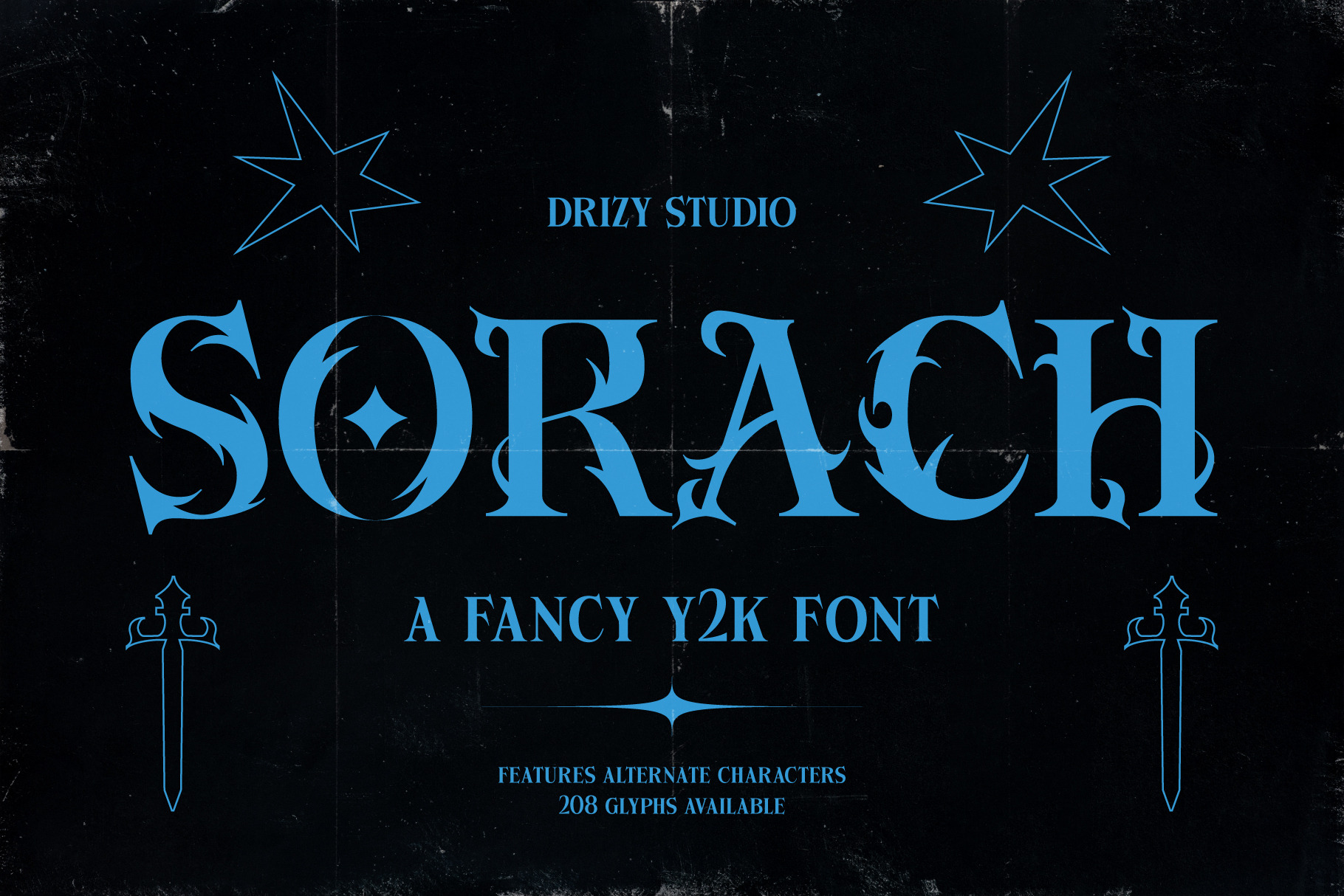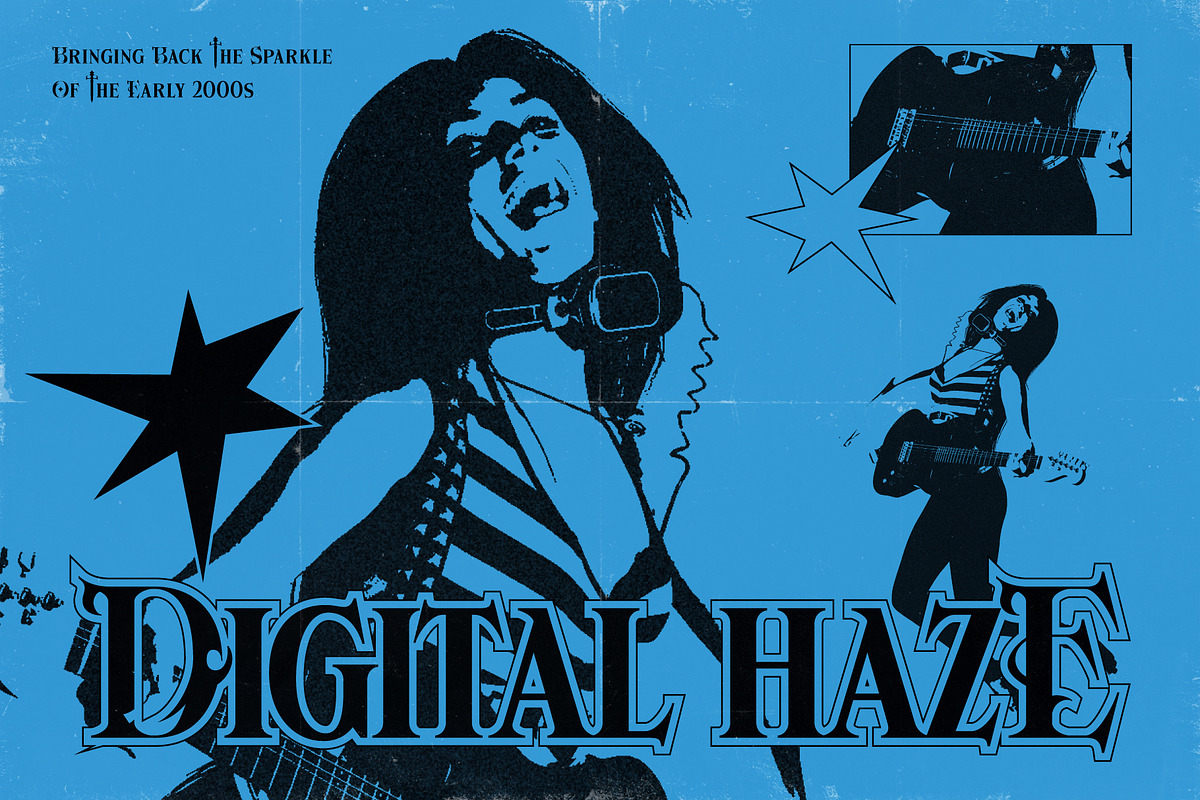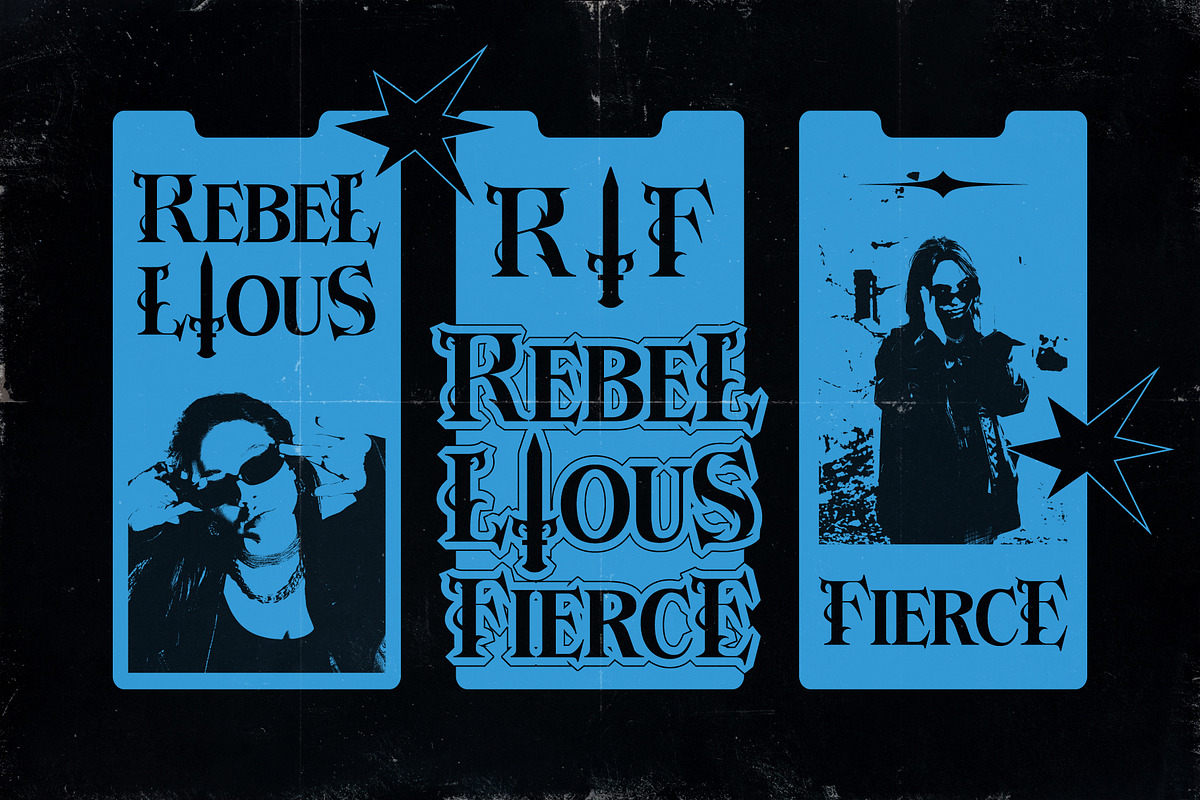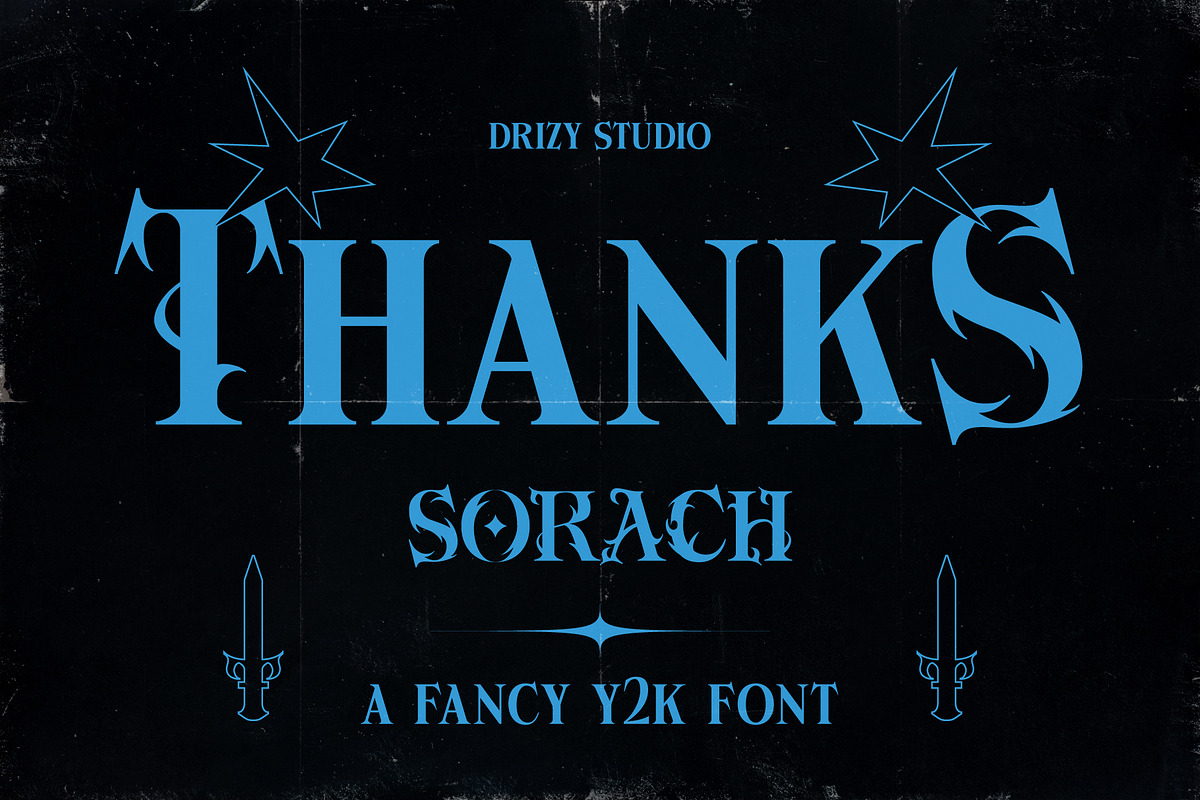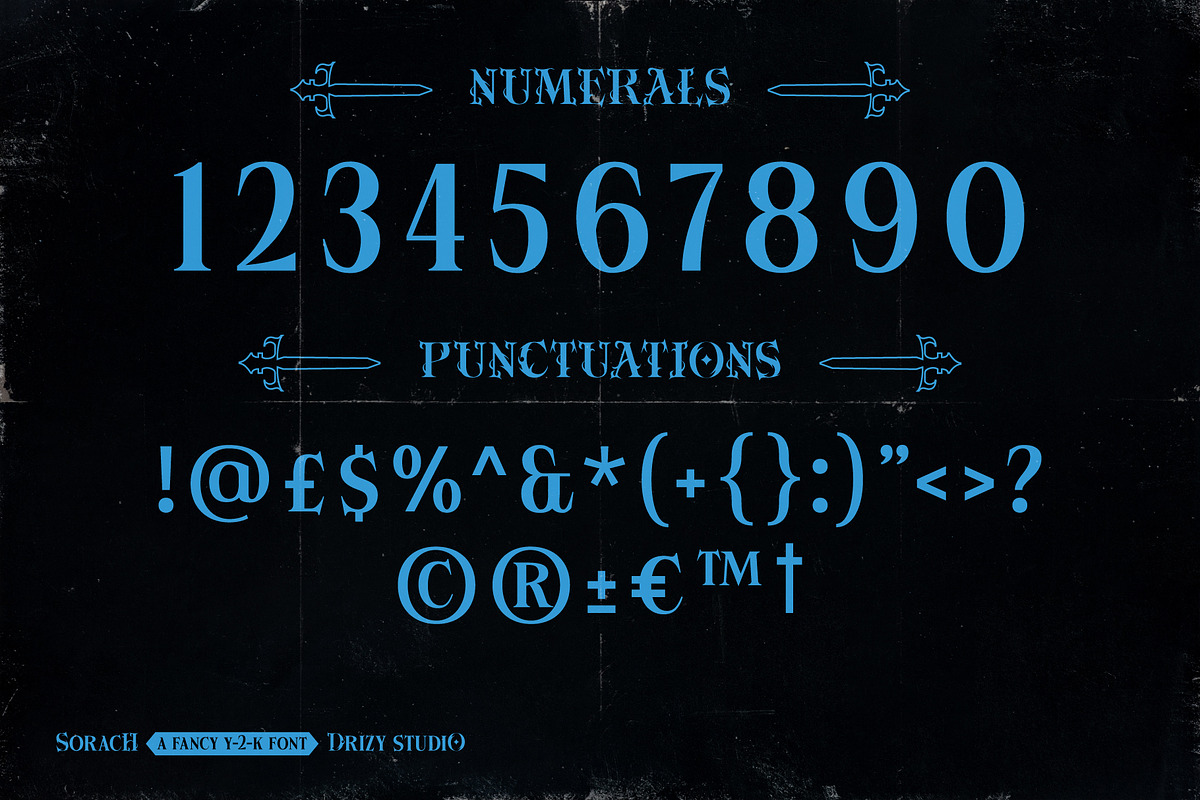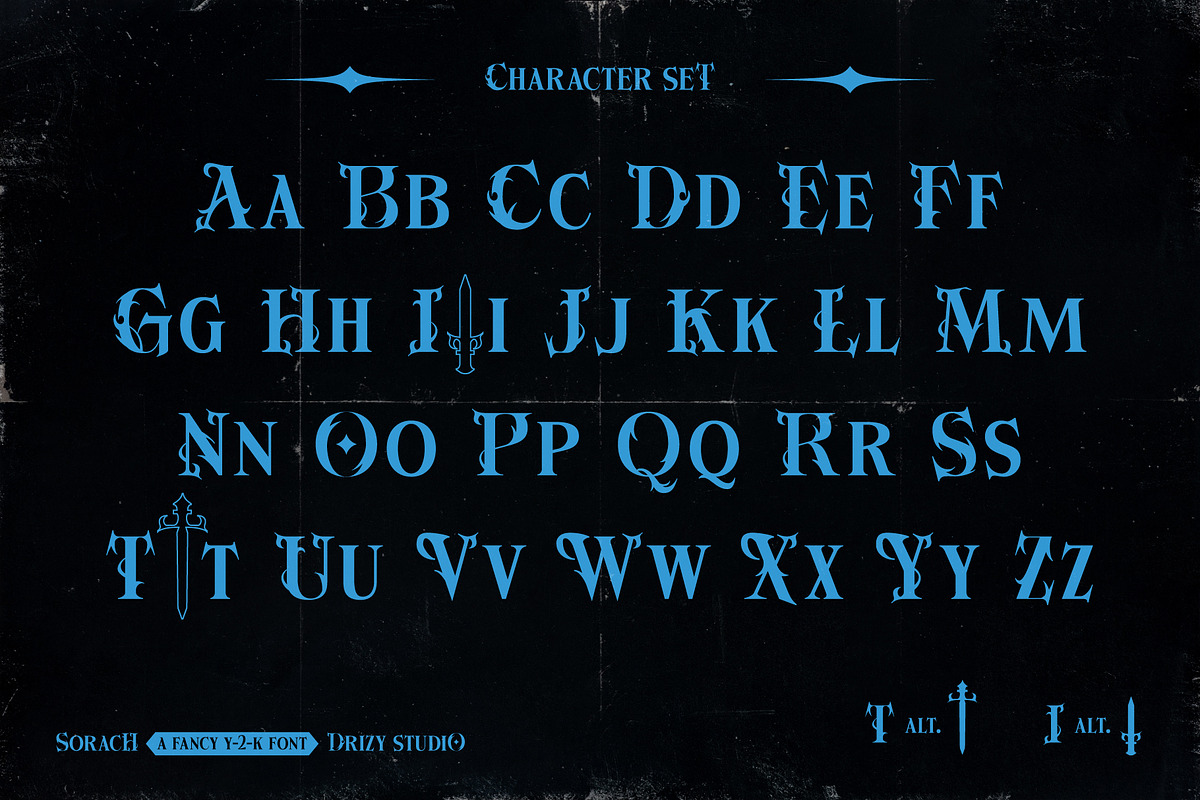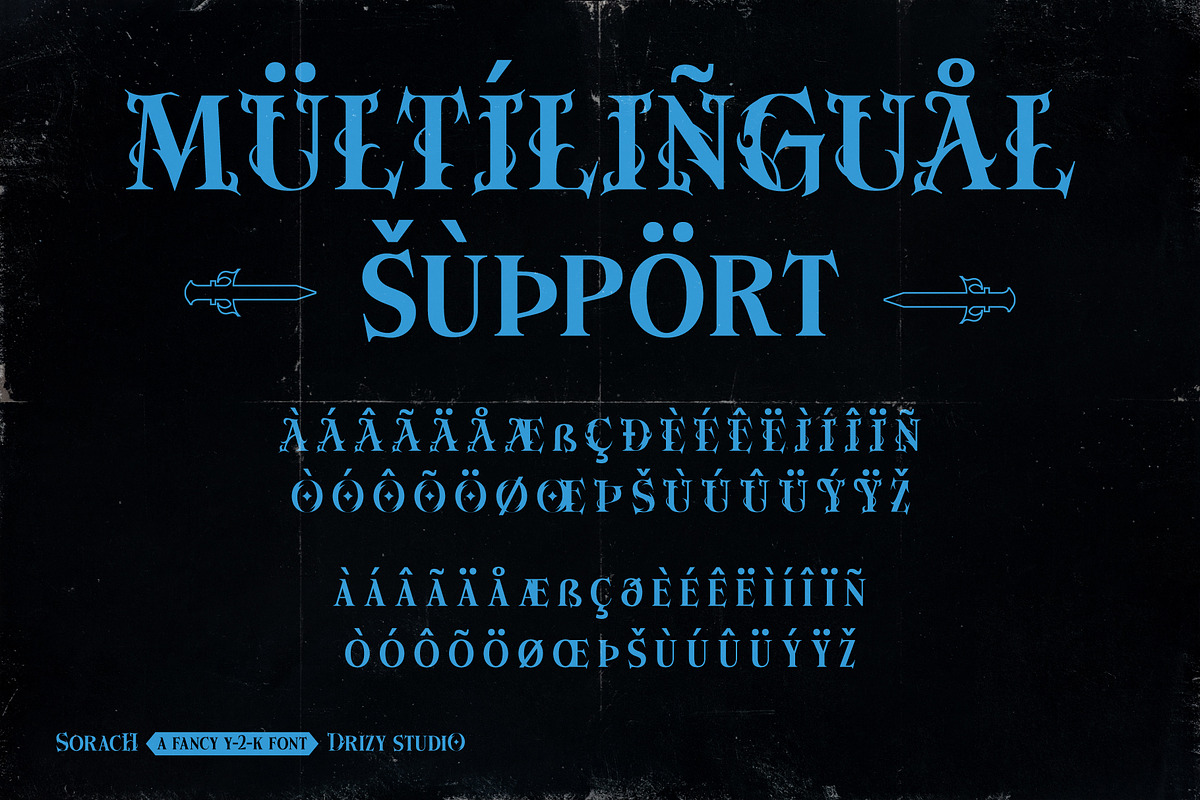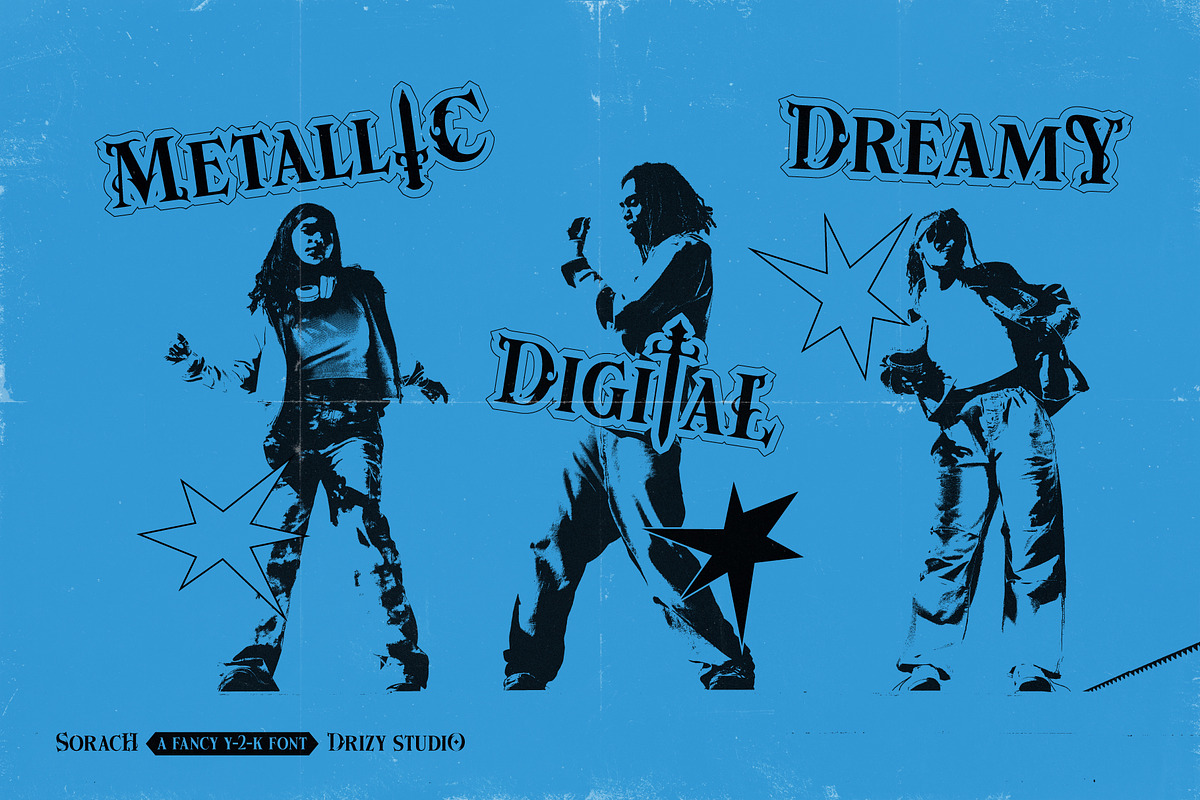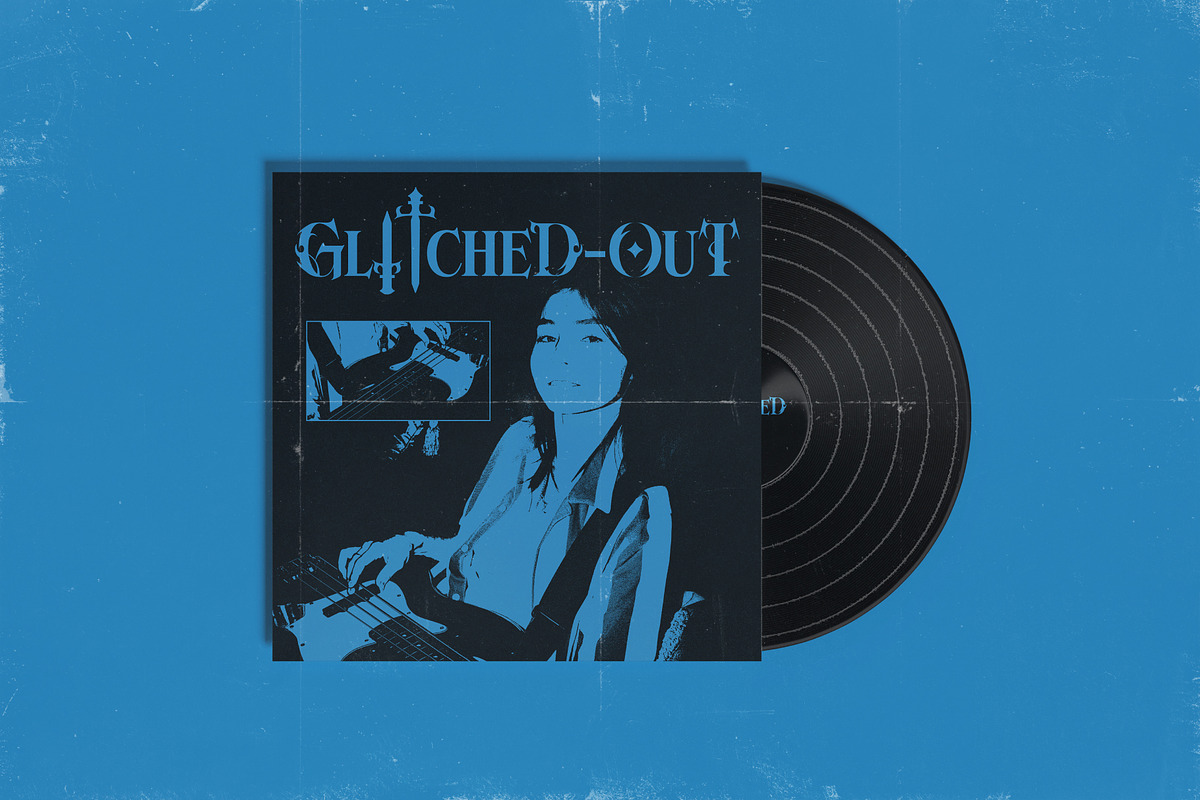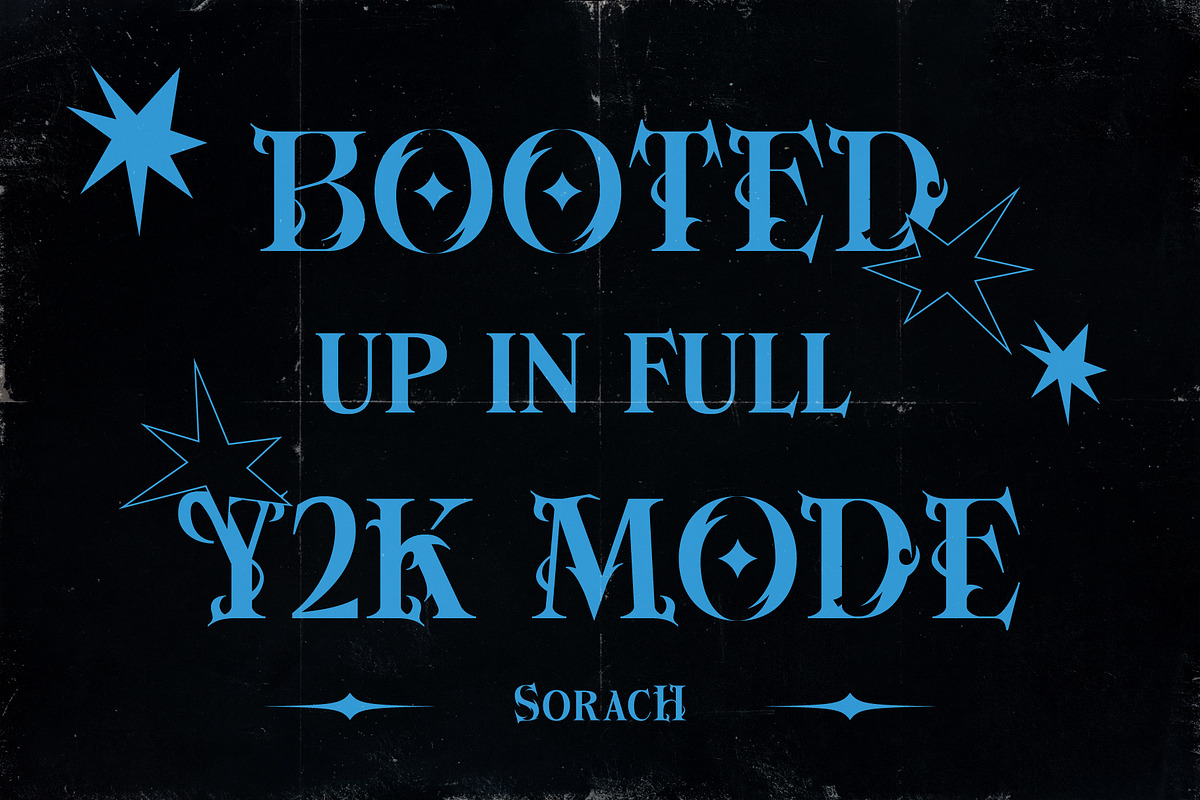
Sorach - Fancy Y2K Font
Sorach is a bold and flashy graffiti Y2K font that oozes attitude. With wild curves, urban edge, and futuristic flair, it brings early 2000s street style straight to your designs. Perfect for posters, album covers, fashion branding, or any project that needs loud, rebellious vibes with a digital twist.
- Character Set (Uppercase & Lowercase)